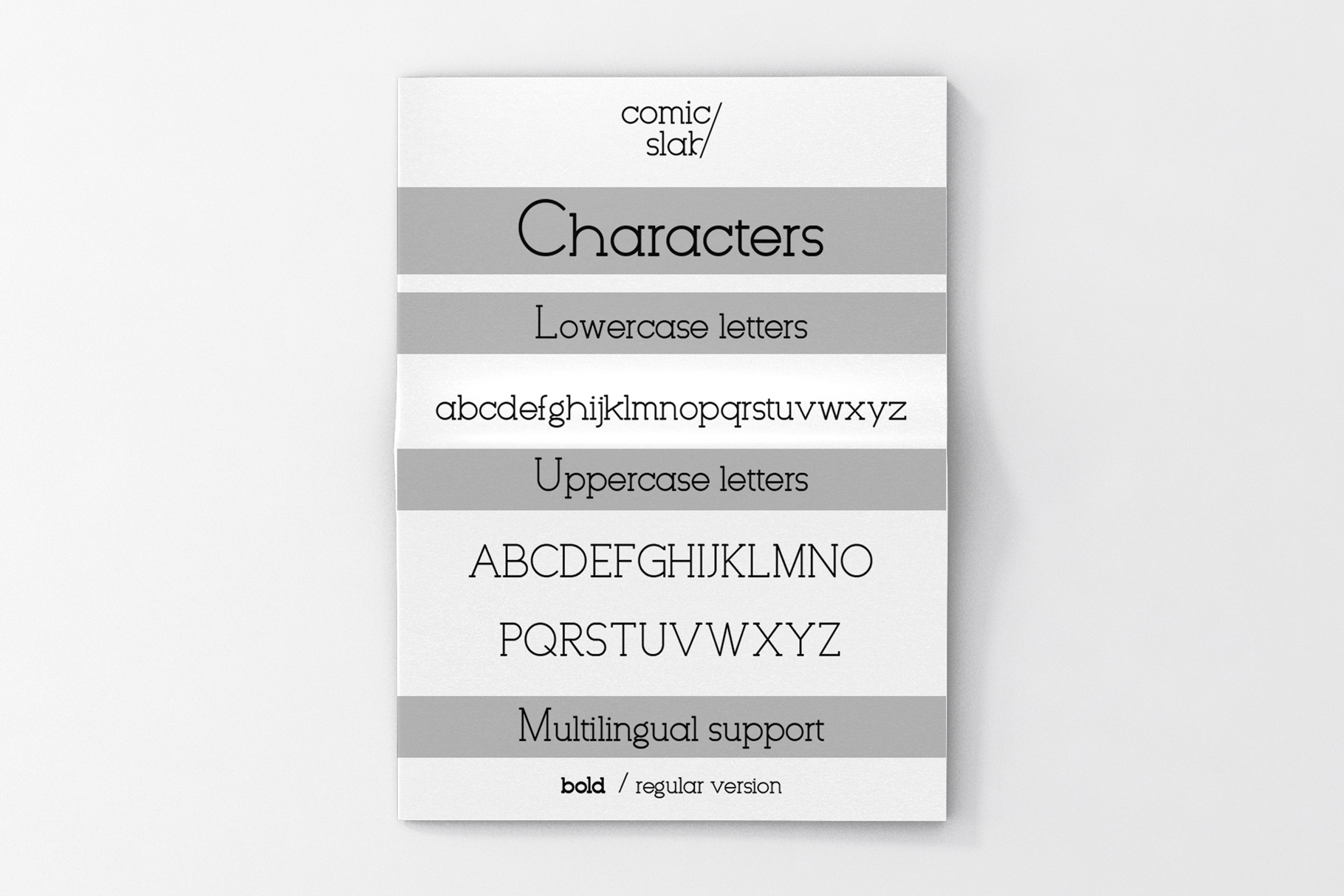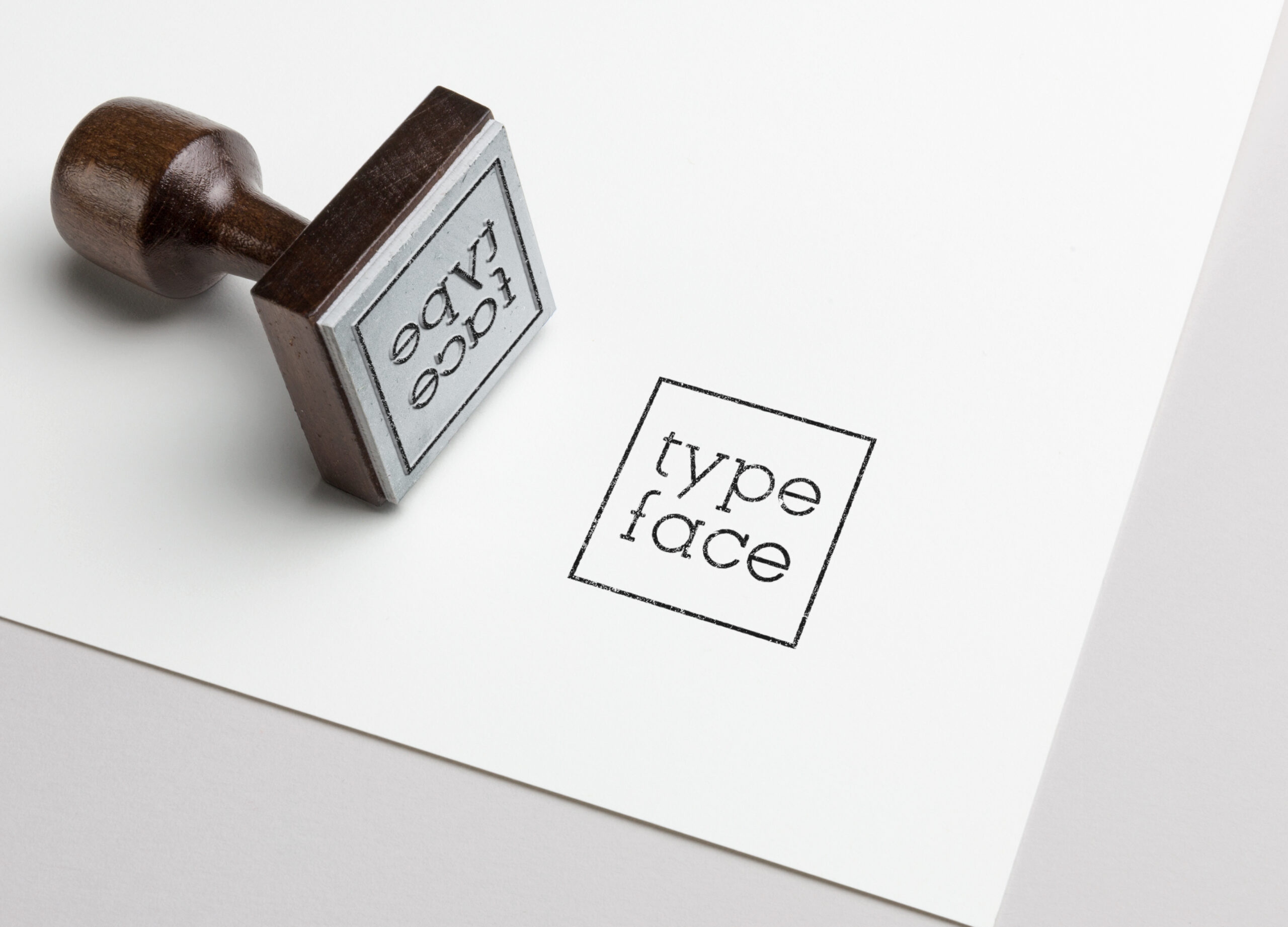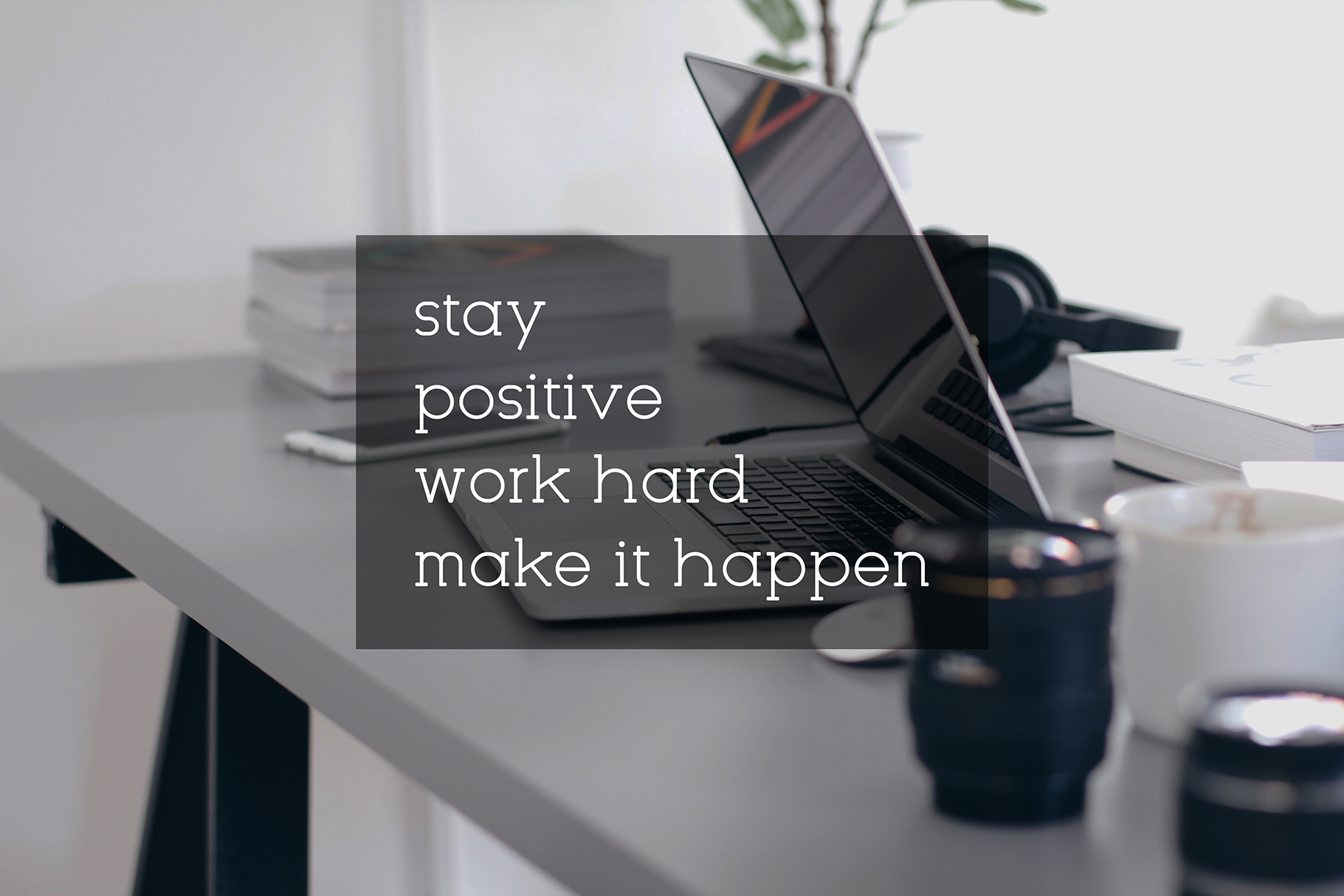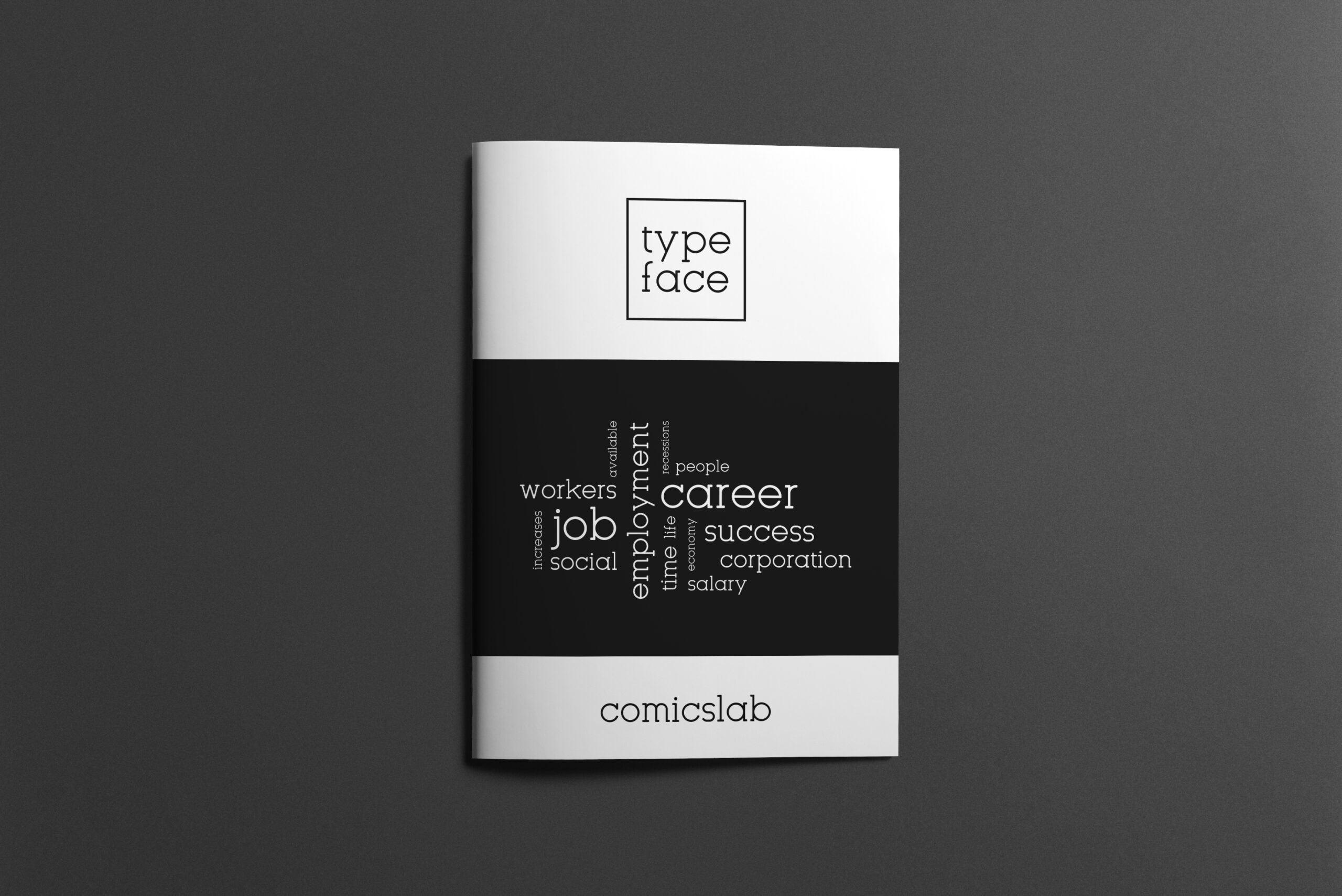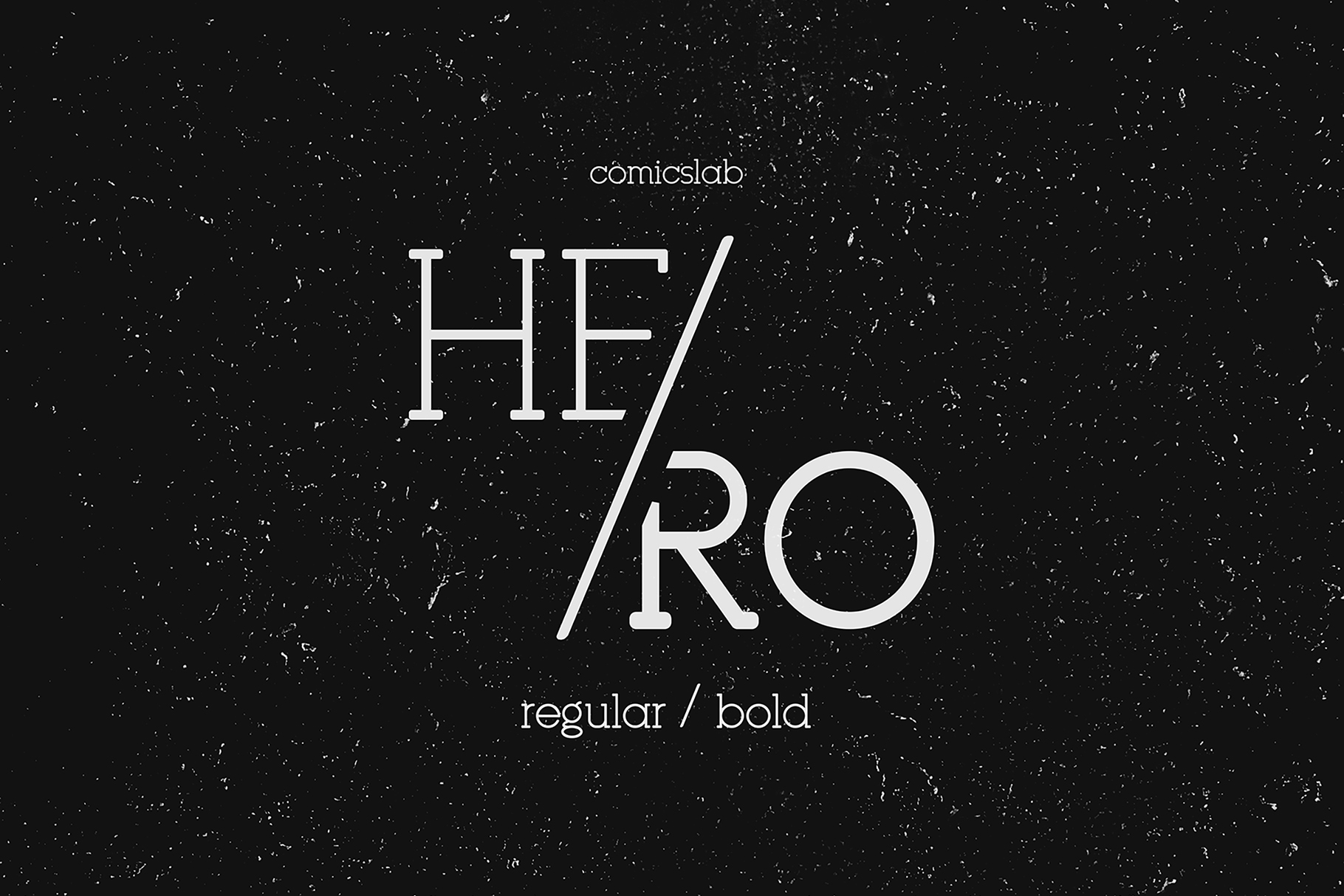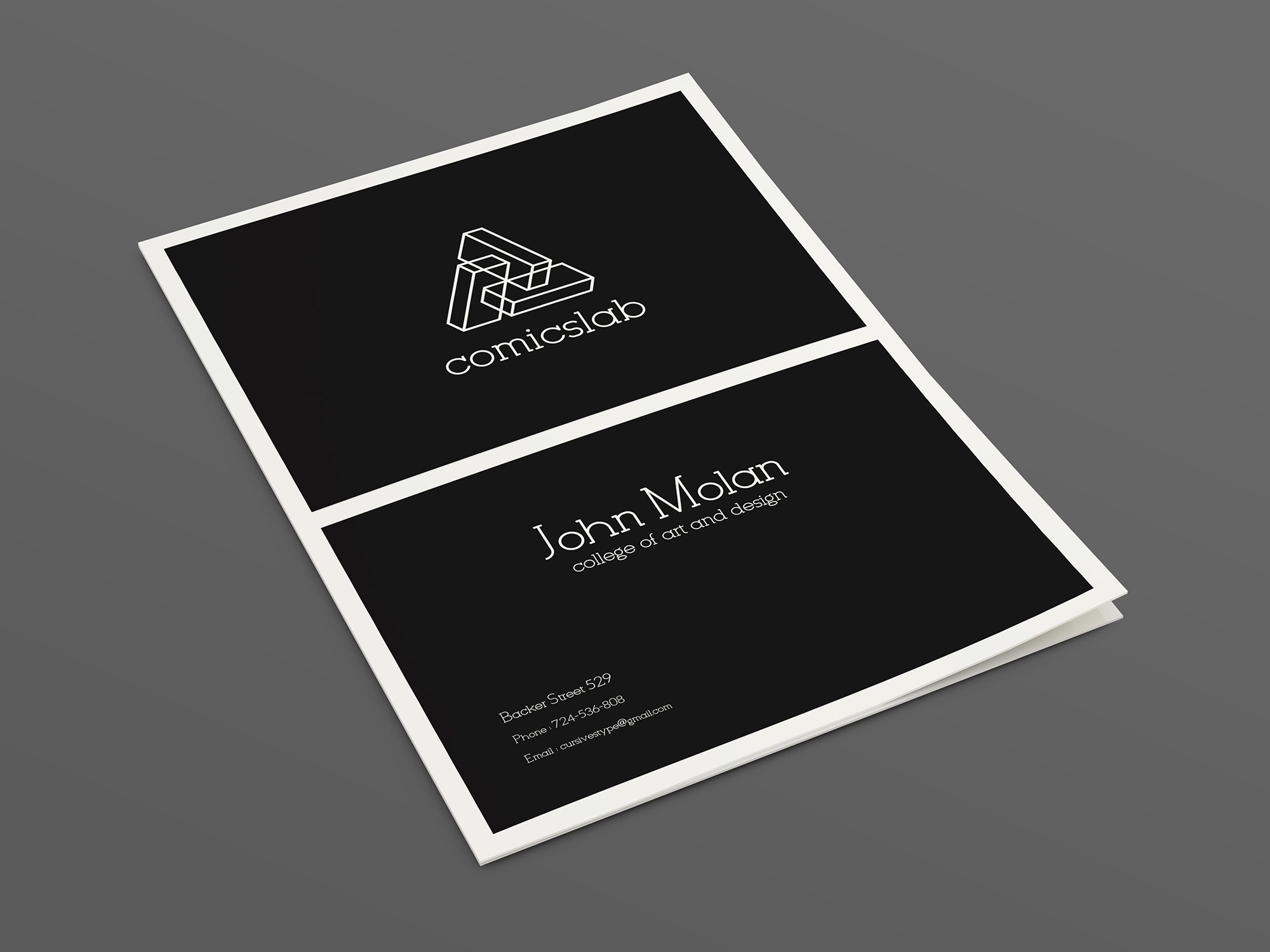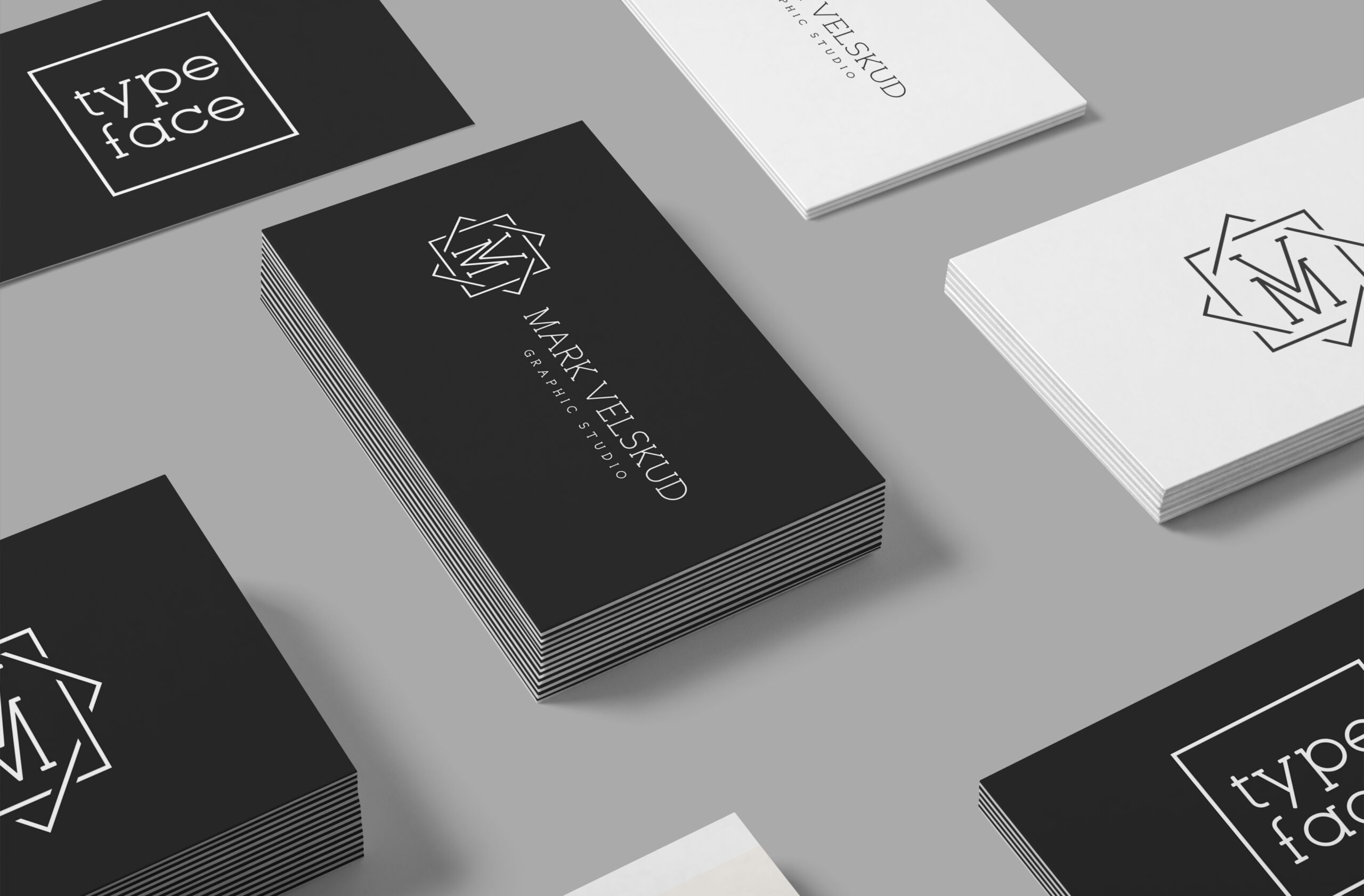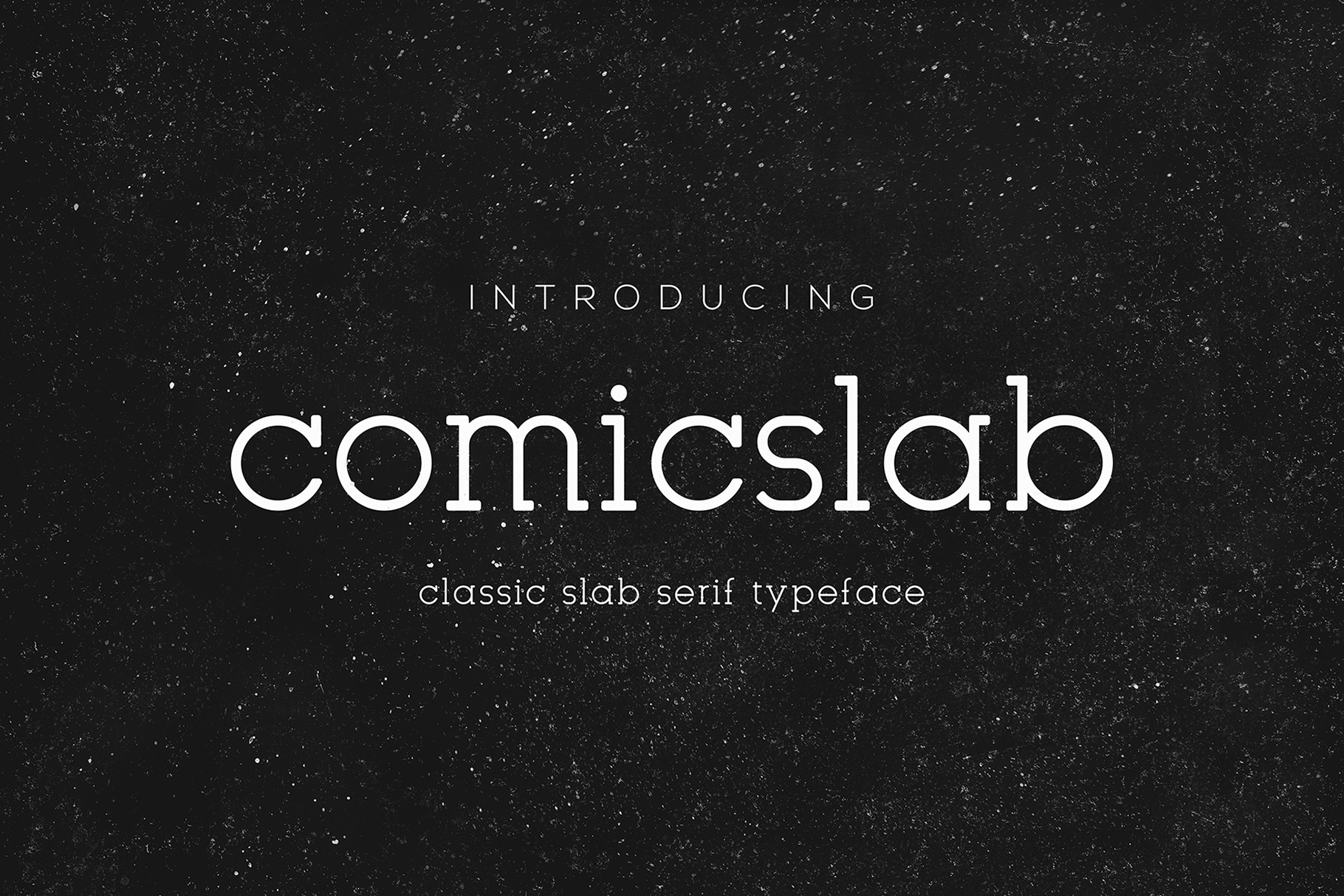
Comic Slab Font
Comic Slab: A Vibrant and Expressive Geometric Slab Serif Font
Comic Slab is a unique and versatile font that combines the geometric structure of slab serifs with the playful spirit of classic sans-serif designs. This delightfully expressive typeface offers designers a powerful tool for creating impactful and fun typography across various design projects.
Key Features of Comic Slab Font
• Geometric Slab Design: Features a clean, structured foundation with playful slab serif elements
• Eight Weights: Offers a wide range of weights for versatile use in different contexts
• True Bold and Regular: Includes properly designed bold and regular weights for optimal readability
• Wide Language Support: Extensive Latin script support for multilingual projects
Ideal Uses for Comic Slab
Comic Slab’s unique characteristics make it particularly well-suited for:
• Eye-catching headlines and titles
• Expressive captions and pull quotes
• Playful logo design and branding projects
• Children’s book covers and illustrations
• Fun and vibrant website headers
Comparison with Other Slab Serif Fonts
While Comic Slab shares some characteristics with other slab serifs like Tecnica Slab Family, its playful and geometric nature sets it apart. Unlike more traditional slab serifs such as Osgood Slab, Comic Slab offers a more contemporary and fun approach to typography, perfect for designs that need to balance readability with a touch of whimsy.
When incorporating Comic Slab into your designs, consider the following tips:
• Experiment with different weights to create hierarchy and visual interest
• Use for both headlines and short blocks of text to showcase its versatility
• Pair with simpler sans-serif fonts for body text to create contrast
• Consider using it in projects where you want to combine a structured look with playful elements
Comic Slab is an excellent choice for designers looking to add a touch of fun and expressiveness to their work while maintaining a geometric structure. Its range of weights and extensive language support make it a versatile tool for various design applications. Whether you’re working on logo designs, creating eye-catching website headers, or developing playful branding materials, Comic Slab offers the perfect blend of structure and creativity.
Explore how Comic Slab can bring a vibrant and expressive edge to your design projects. From branding to editorial design, this font provides the tools to create impactful and memorable typography that stands out in various design contexts.